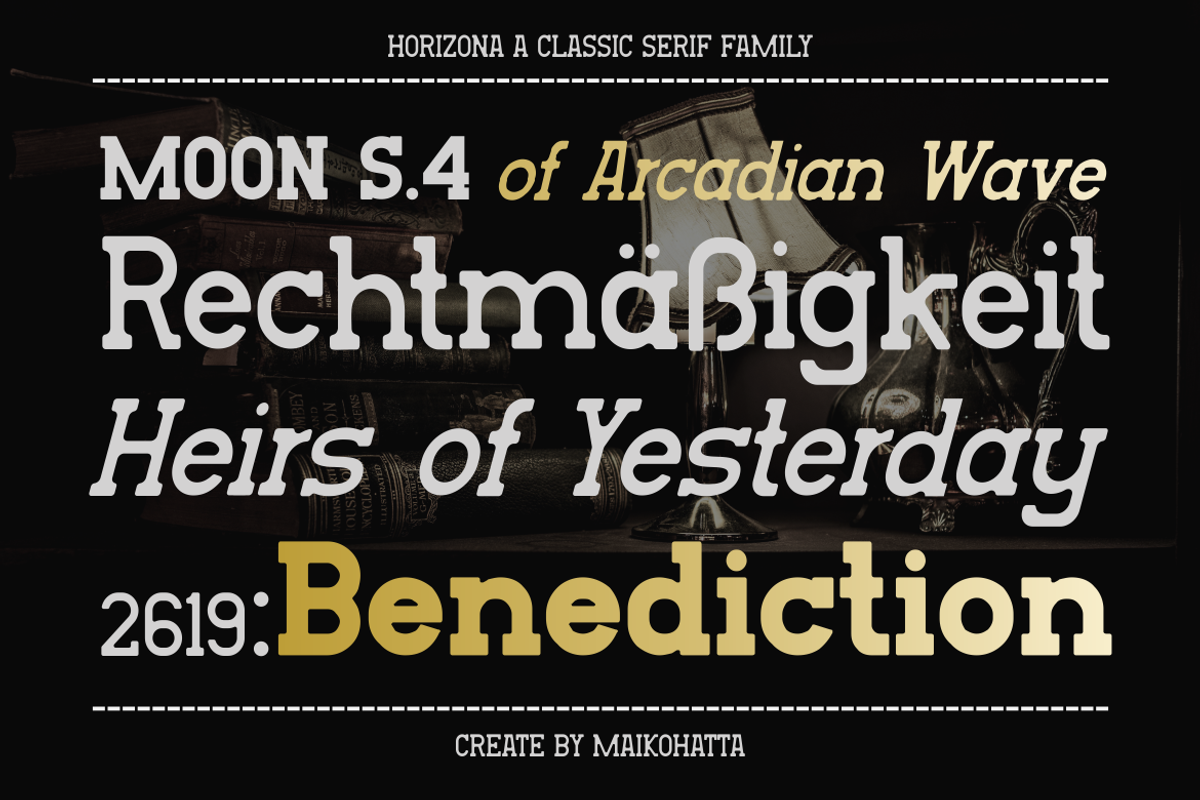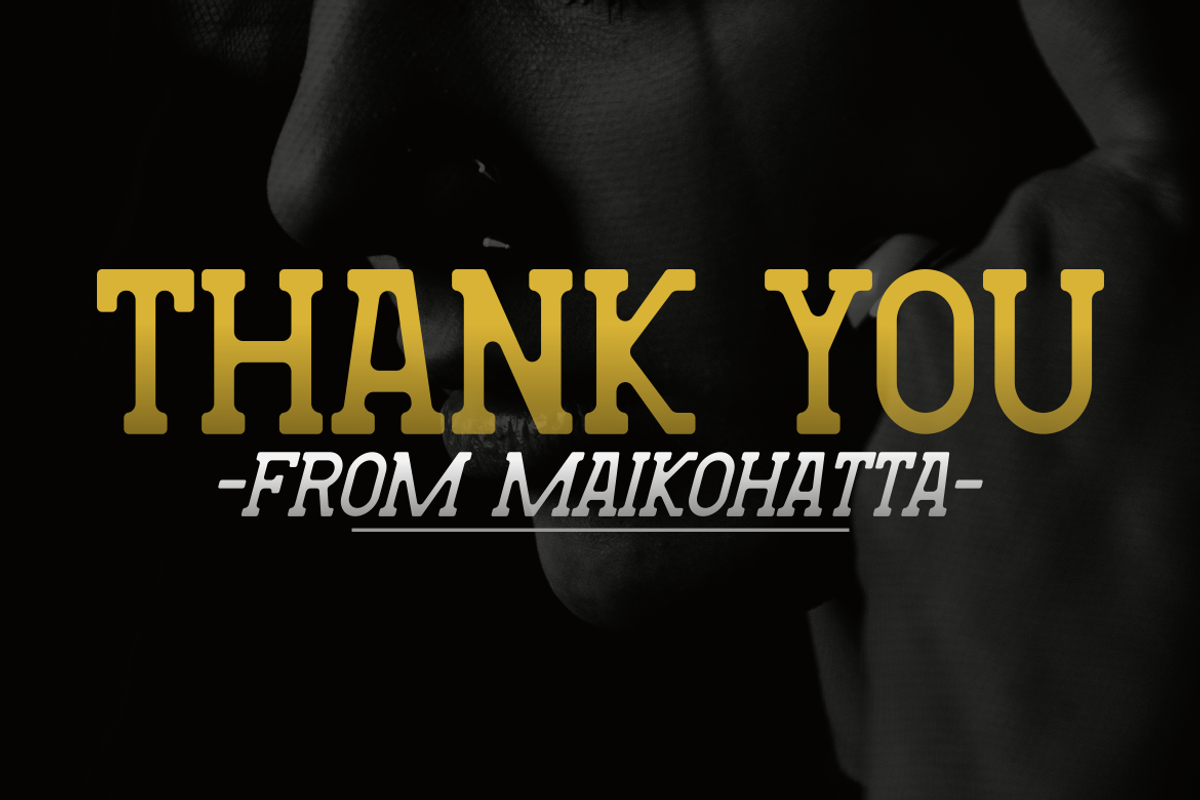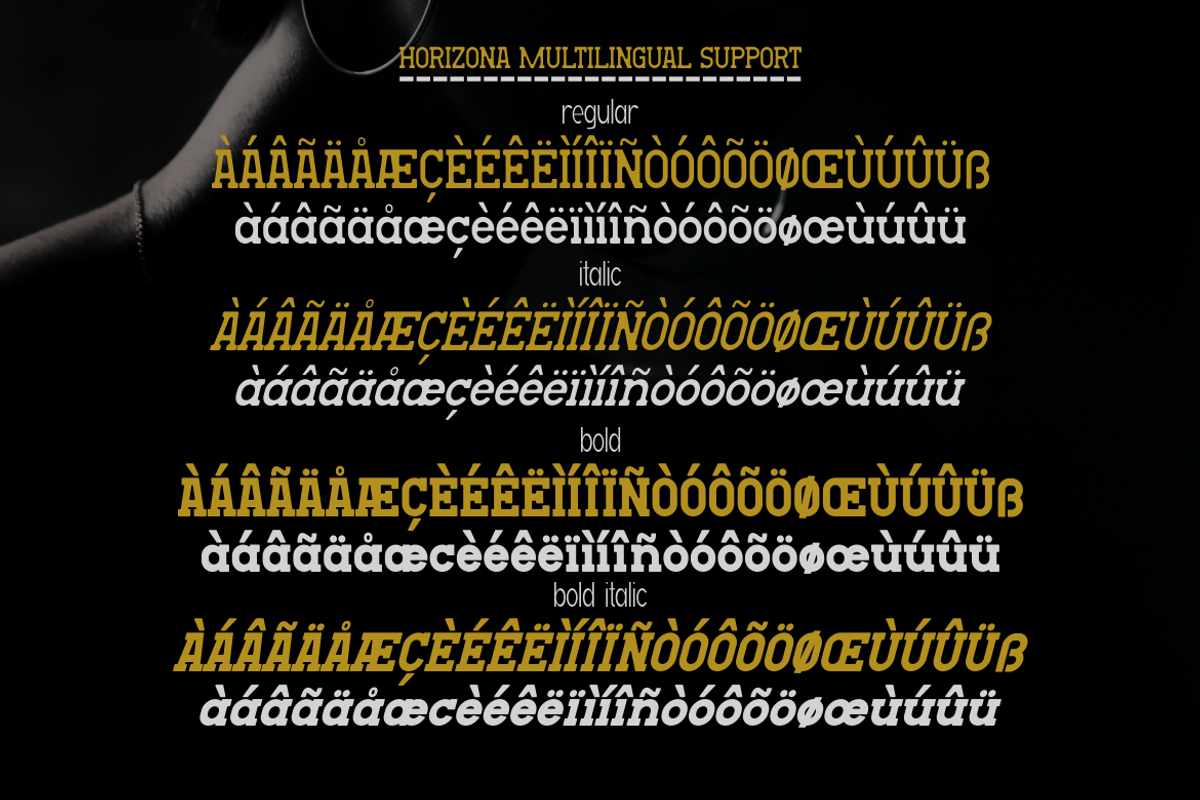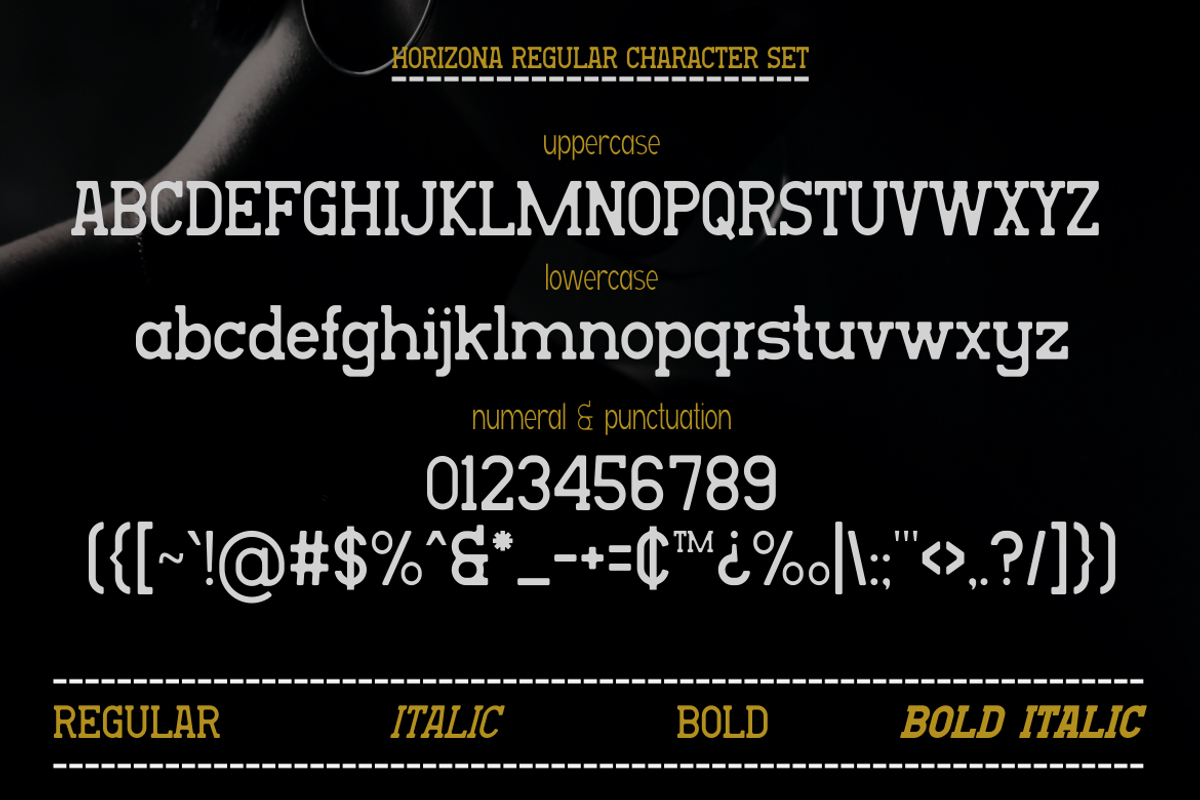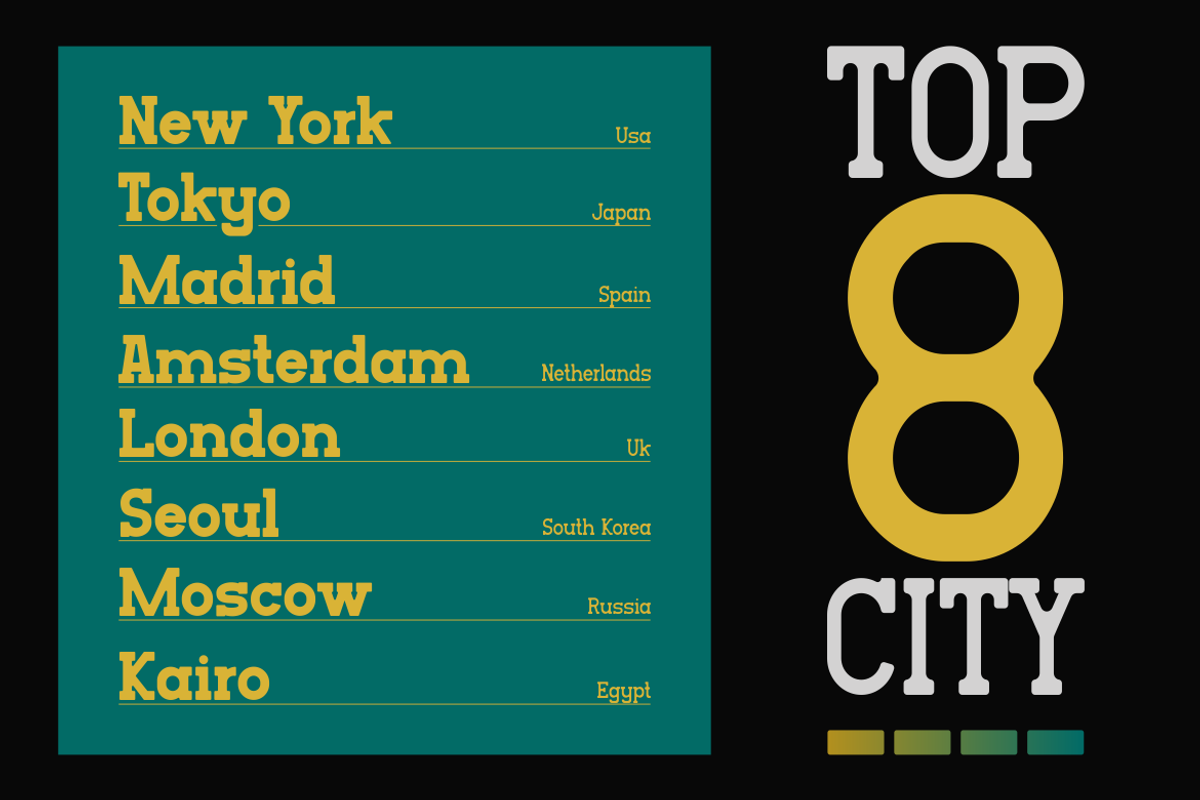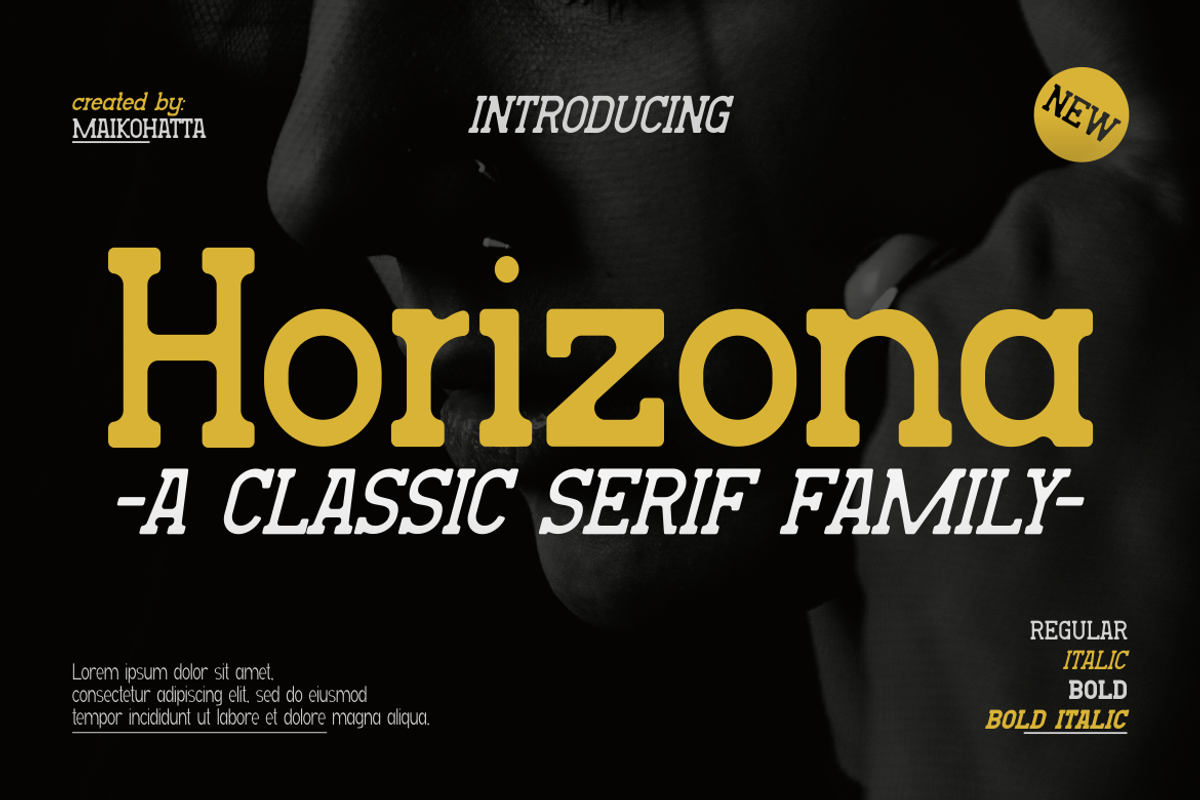
Horizona - Classic Serif Family
Introducing our new product Horizona Classic Serif Family
This font has a series of small or decorative projections called serifs at the ends of its characters. Serifs provide a more formal, classic, and easy-to-read appearance to printed text. Serif fonts are often used in formal documents, books, and print publications because of their good legibility at small text sizes.
available
Style Font
- Regular Italic
- Bold
- Bold Italic